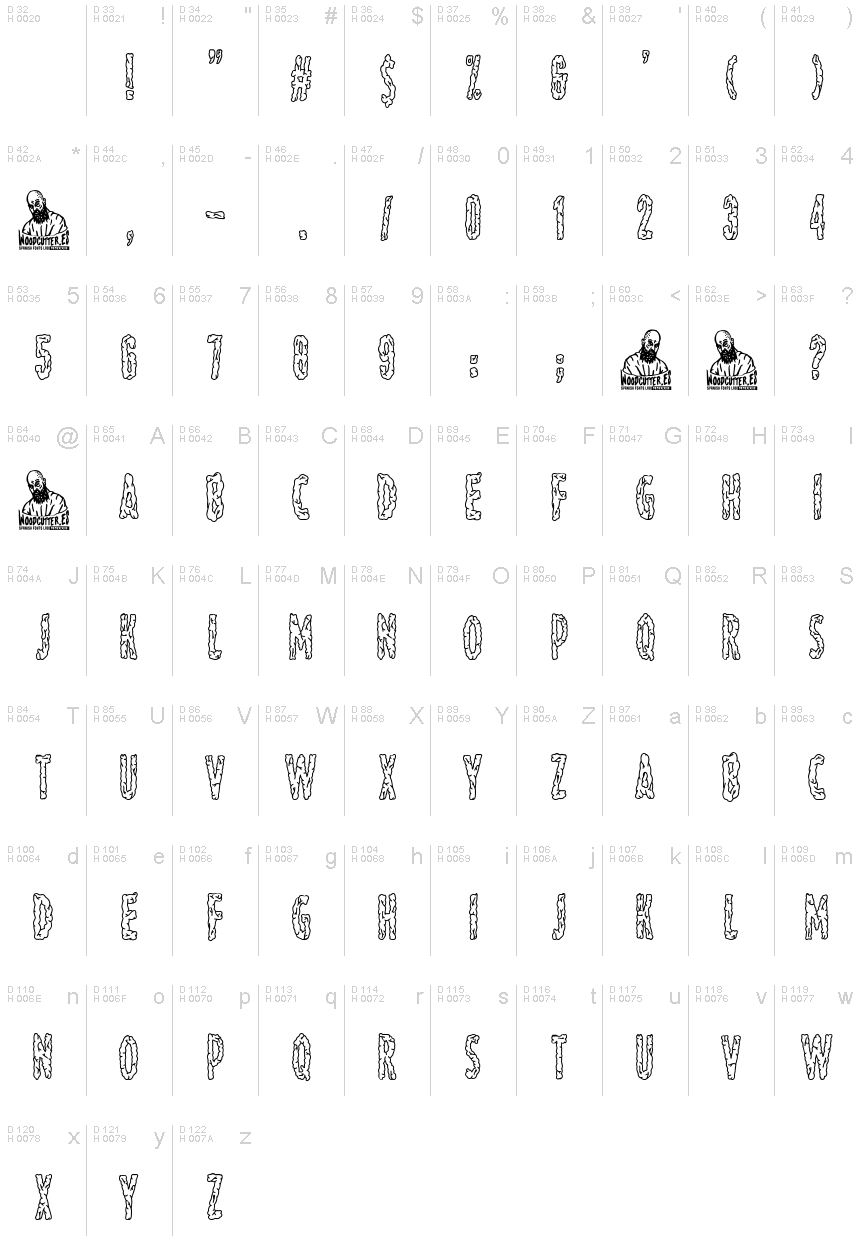
Big Brain Company
The "Big Brain Company" font, designed by Woodcutter, is a captivating display typeface that exudes a delightfully decorative and condensed aesthetic. Its intricate, organic linework and playful curves evoke a sense of whimsy and artistry, making it a visually compelling choice for various design projects.
This font's unique characteristics lend themselves well to attention-grabbing headlines, impactful logo designs, and eye-catching branding elements. Its condensed nature allows for versatile implementation, from larger-than-life statements to more compact compositions, ensuring it can adapt to a diverse range of design needs.